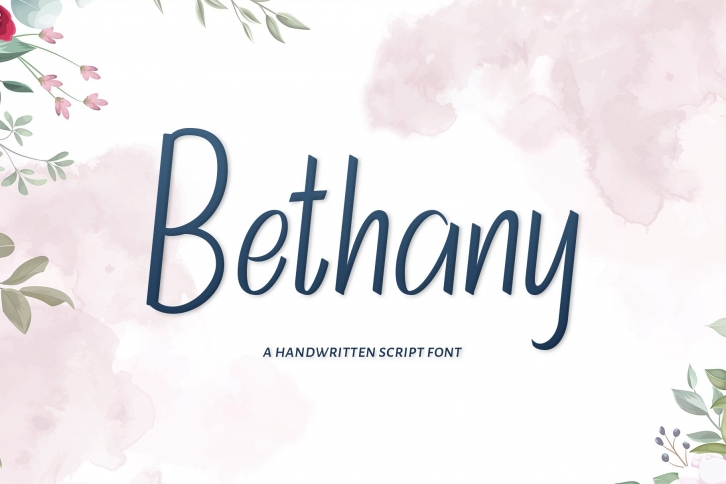
Bethany is a gorgeous font that was realeased on April 8, 2022. The font can be used in many style contexts and design environments. Perfect for invitations, magazines, websites, logos, and more! It was designed by Alpha leonis store and the file size is 9.84 MB. Thanks for checking out this font!